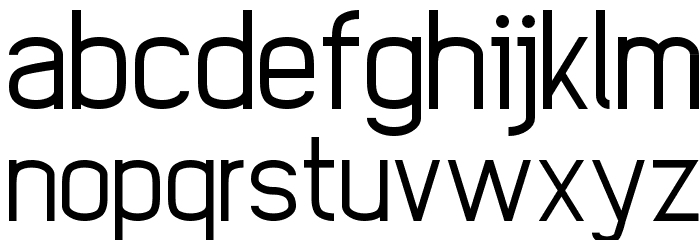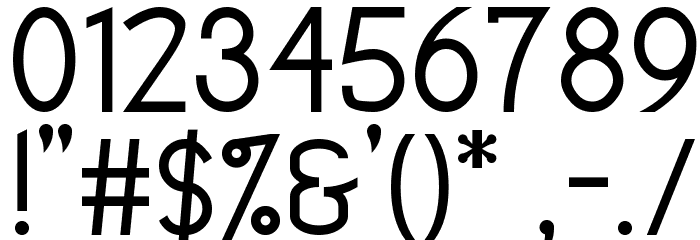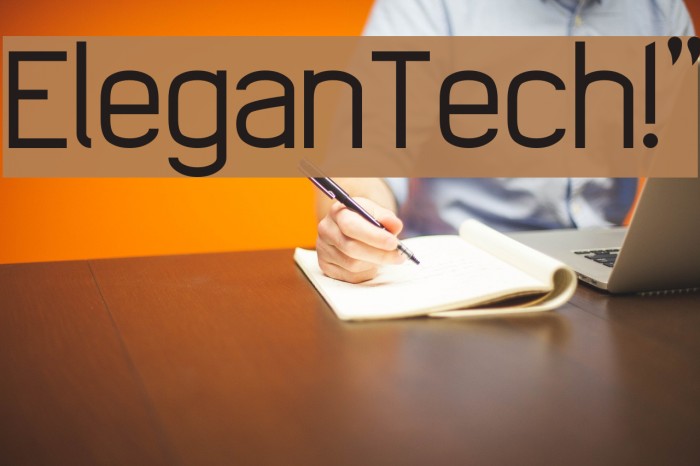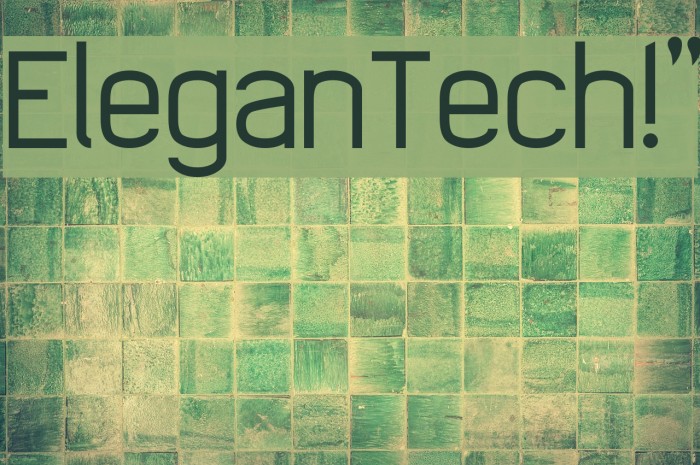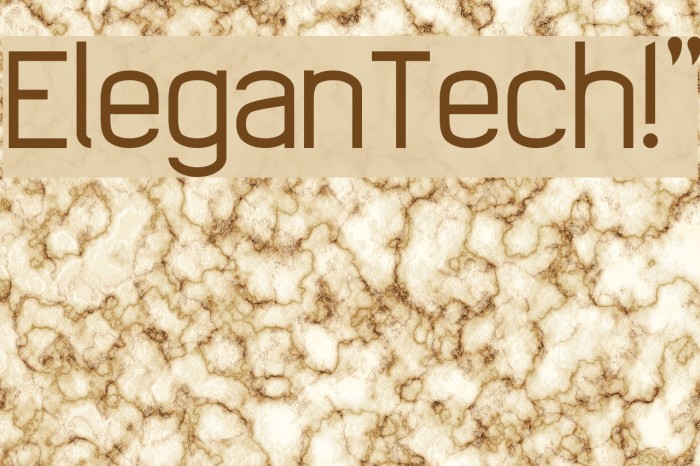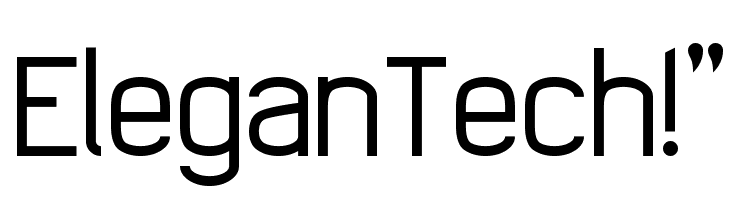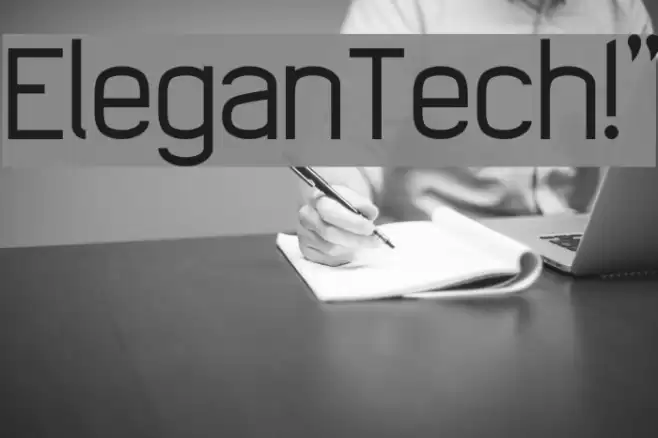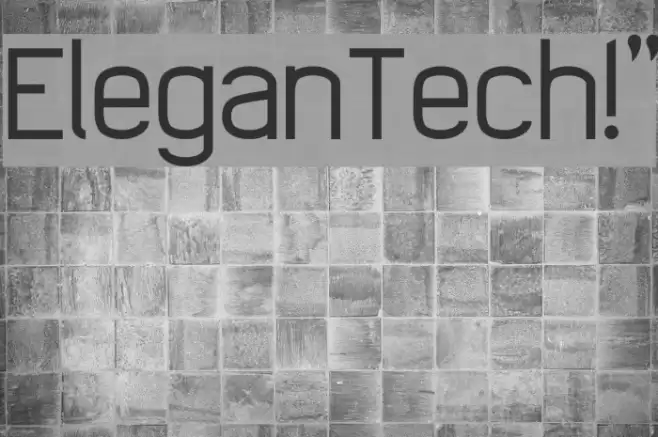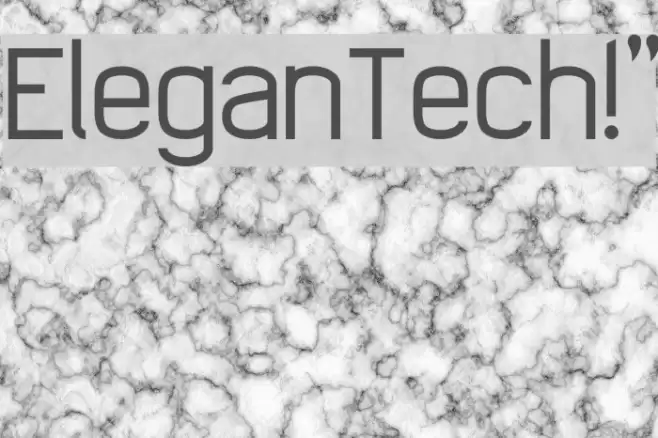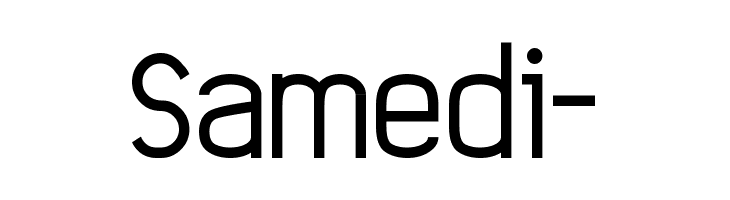
EleganTech!` Font
This font embodies a sleek and modern aesthetic, characterized by its clean lines and geometric shapes. The uppercase letters are uniform in height, providing a sense of balance and harmony. The lowercase letters maintain a consistent style, with rounded edges that add a touch of softness to the overall design. The numerals are clear and legible, making them suitable for various applications. Special characters are thoughtfully designed, ensuring they blend seamlessly with the rest of the typeface. The font's simplicity and elegance make it versatile for both digital and print media.
A sleek, modern font with clean lines and geometric shapes.
- Proposed Projects: Ideal for tech branding, modern websites, digital interfaces, and minimalist print designs.